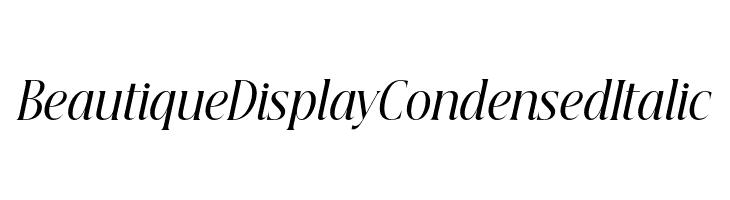
A bold, high-contrast italic font with an elegant and dynamic style.
A bold, high-contrast serif font with elegant and sophisticated styling.
Elegant and bold italic serif font with a classic and sophisticated style.
A refined, high-contrast, condensed serif font with elegant, elongated letterforms.
A bold, high-contrast, condensed serif font with elegant serifs.
A sophisticated, condensed, and italicized font with high contrast and elegant style.
A high-contrast, condensed serif font with elegant and sharp serifs.
A sophisticated, condensed bold italic font with high contrast and elegant style.
A sophisticated, condensed italic typeface with high contrast strokes.
Elegant, high-contrast, and condensed font with sharp serifs.